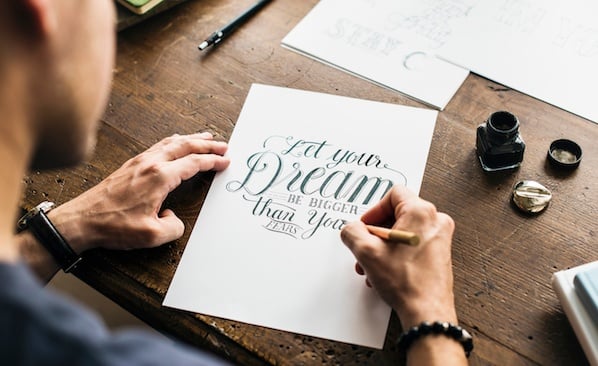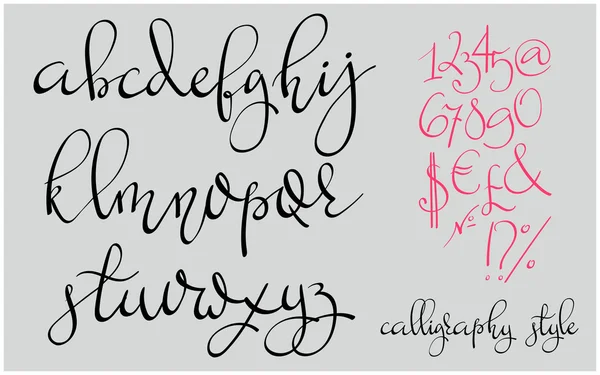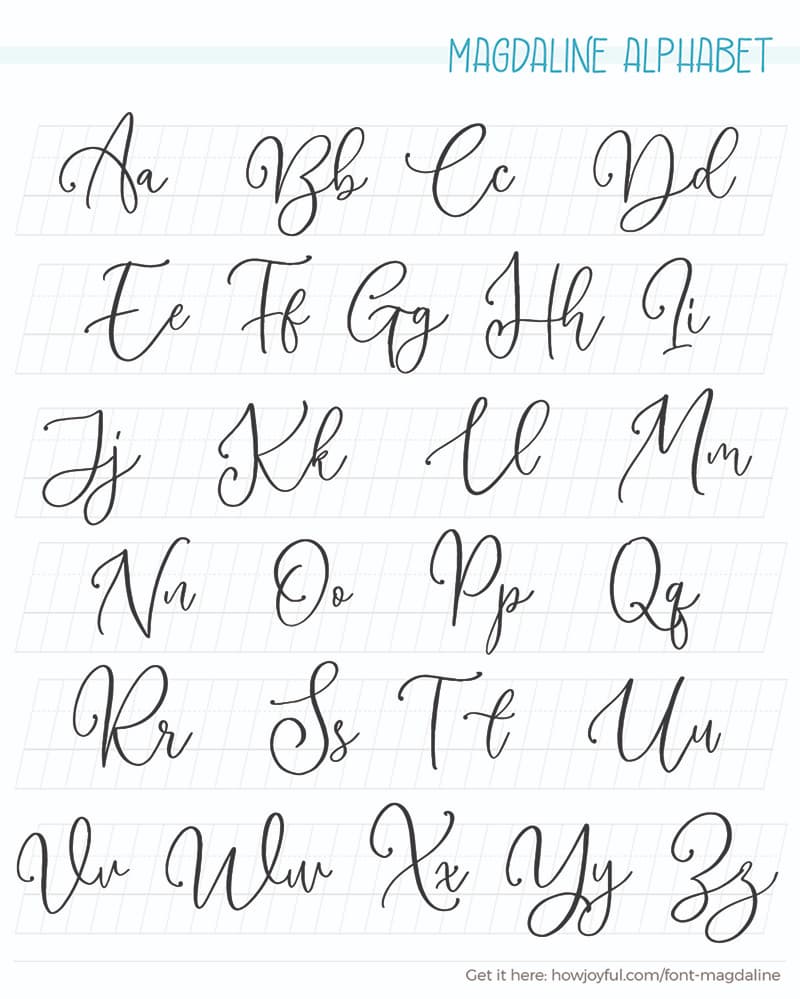
Free printable calligraphy alphabet a to z styles and samples. Calligraphy Alphabet Capital Images Stock Photos Vectors.
Calligraphy Fonts Capital Letters
Calligraphy fonts a to z. Burgues Script created by Alejandro Paul is a typical font family of calligraphy style. Elegant Calligraphy Uppercase Lowercase Letter Stencils A Z 1 4. Cursive Writing Calligraphy A To Z Capital Letters For Beginners.
Calligraphy Fonts The writing is readable but is usually extravagant and embellished with flourishes. Hey We are back with our new video on calligraphy. Alphabets created with special calligraphy fonts.
The main sub-styles are traditional calligraphy and modern. Printable calligraphy alphabet cursive A-Z 0-9 large monogram and alphabet wall lettering. Calligraphy fonts are more artistic than the average font often using a script style to emulate the look of handwriting.
Calligraphy is an ancient writing technique using flat edged pens to create artistic lettering using thick and thin lines depending on the direction of the stroke. Calligraphy Fonts A To Z - Calligraphy. Calligraphy Fonts A To Z Beautiful Fancy Cursive Fonts A-z Paijo Network.
Its one of the popular sub-groups of the gothic family along with Textura Quadrata Rotunda Fraktur etc. Calligraphy fonts are widely used in wedding event invitations original logo design religious art films TV etc. Lucida Calligraphy Full Alphabet And Numbers Set 6 Tall 8mm.
Calligraphy alphabets from a to z letters in black in over 15 styles and samples which include uppercase and lowercase styles Gothic Stencils Cursive Romantic Roman and more. 7 rows Great for creating formal holiday greeting cards and for use in various projects a very elegant and. Calligraphy is an artistic writing style where the pressure is varied to create thick and thin lines all in a single stroke.
Today we will discuss calligraphy fonts a to z which included as well vintage set capital letter z for monograms and logos and graffiti collection ideas graffiti alphabet fonts a z basic to calligraphy letters google search calligraphy. The height of calligraphy was reached in the middle age where monks developed the narrow writing style called gothic allowing more words to fit on a single line as paper was expensive at the time. Calligraphy Fonts A To Z Inspirational designs illustrations and graphic elements from the worlds best designers.
They often look as if they were drawn with flat-tipped pens or brushes. C O L O R S I Z E and format. Alte is a great looking Gothic calligraphy font based on the Schwabacher script.